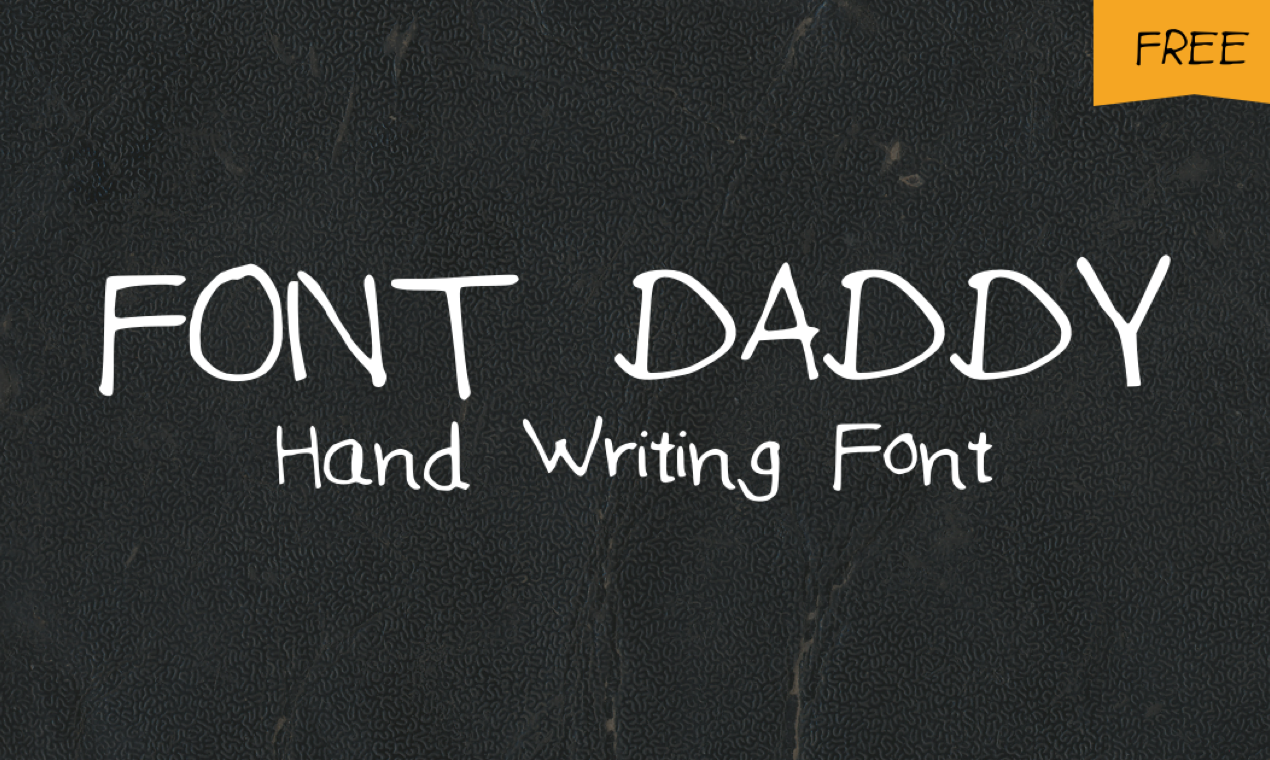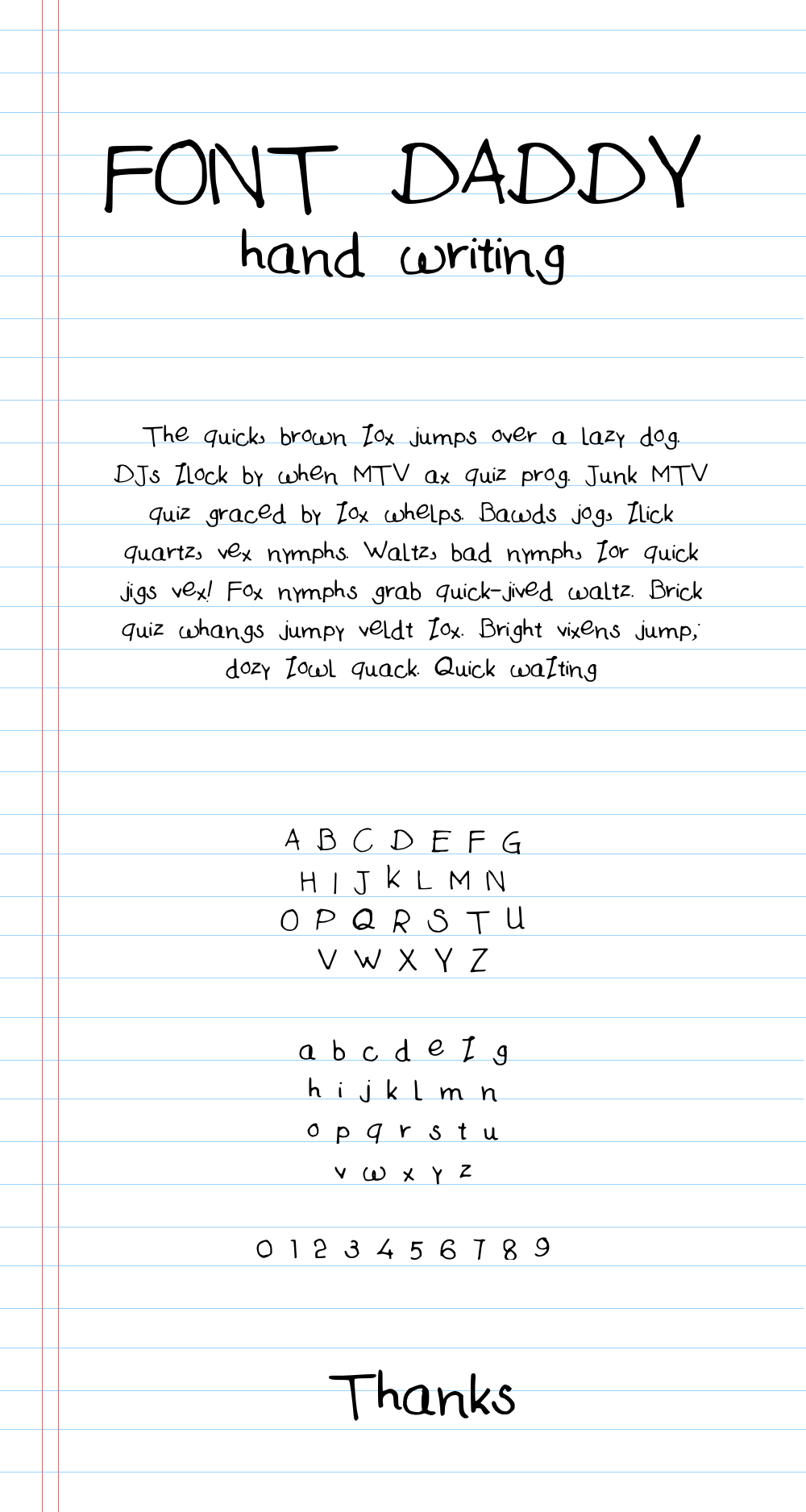
Font Daddy hand writing font
crafted using a real pen
An authentic & organic hand-drawn script font, crafted using a real pen. This font has been carefully designed to re-create natural handwritten text.